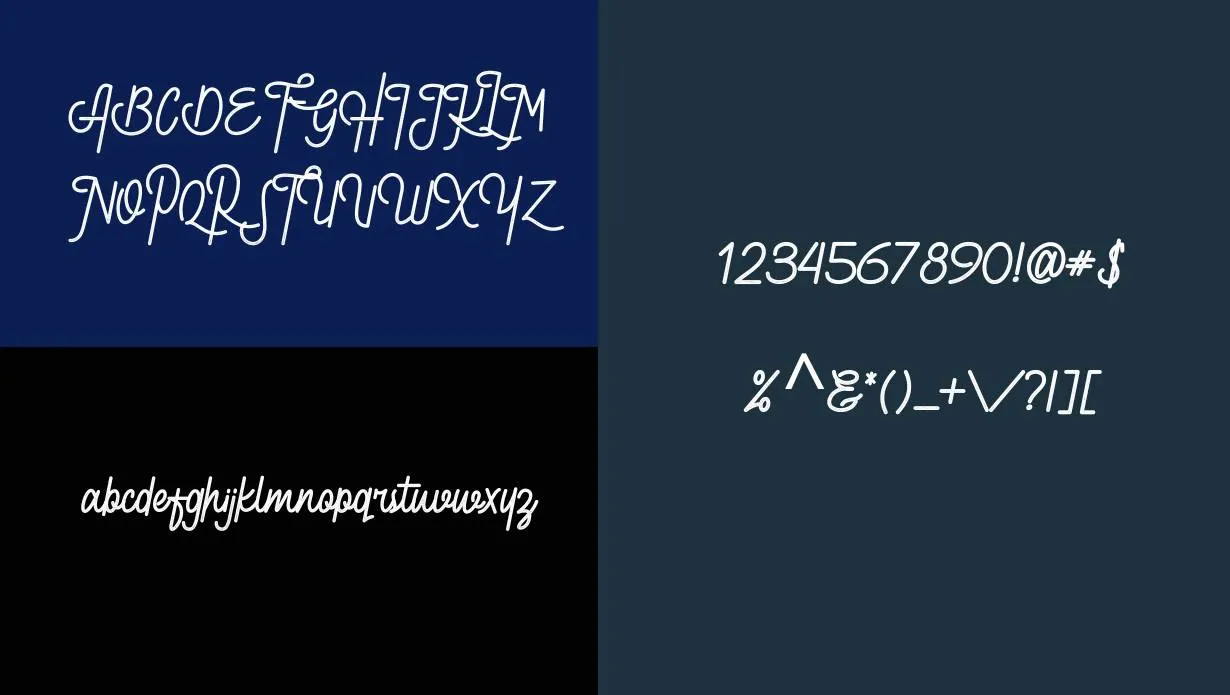
Guthers Monoline Font has a sleek and contemporary look, perfect for creating websites, logos, and modern editorials. This font typically works with file formats such as OTF and TTF, making it user-friendly with various design programs. Discover the versatility and chic style of Guthers Monoline Font today for your design projects!
Guthers Monoline Font
Its sleek and contemporary appearance brings a touch of sophistication to any design, making it well-suited for modern and stylish design needs. With its minimalist yet stylish approach, Guthers Monoline Font is perfect for projects seeking a blend of simplicity and modernity.